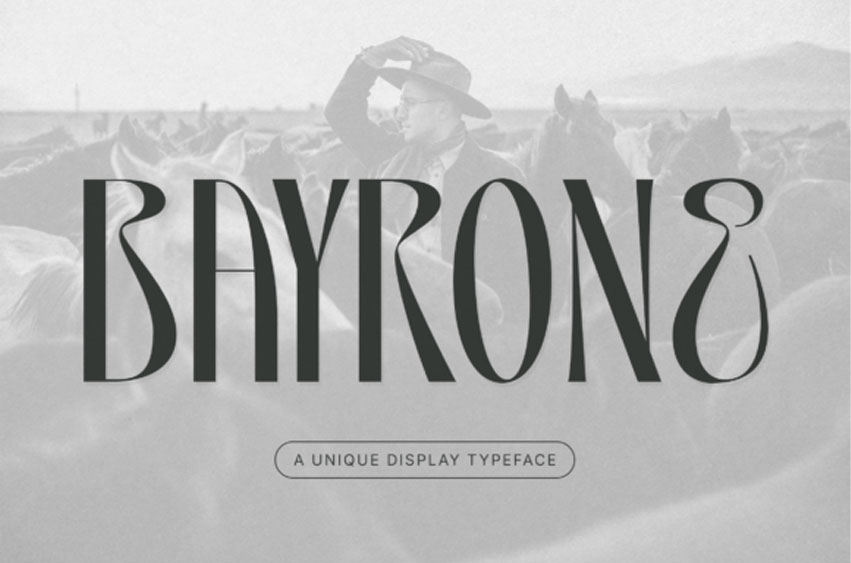
Bayrone Font is a harmonious blend of vintage and contemporary design elements, culminating in an elegant yet modern typeface. With each letter meticulously crafted to make an impactful statement, Bayrone’s distinctive elongated letterforms, high-contrast strokes, and artful curves contribute to an overarching sense of refined sophistication.
Ideal for branding, headline creations, fashion promotion, packaging, or any endeavor requiring a visually striking identity, Bayrone inspires a tone of luxury. Its design, while hinting at the grandeur of vintage Western refinement, boasts a contemporary vibe that offers originality in every stroke. The assurance of Bayrone is its capacity to generate a dramatic flair with each letter, thus making it a perfect fit for designs meant to draw the eye and command attention.
Bayrone Font Preview